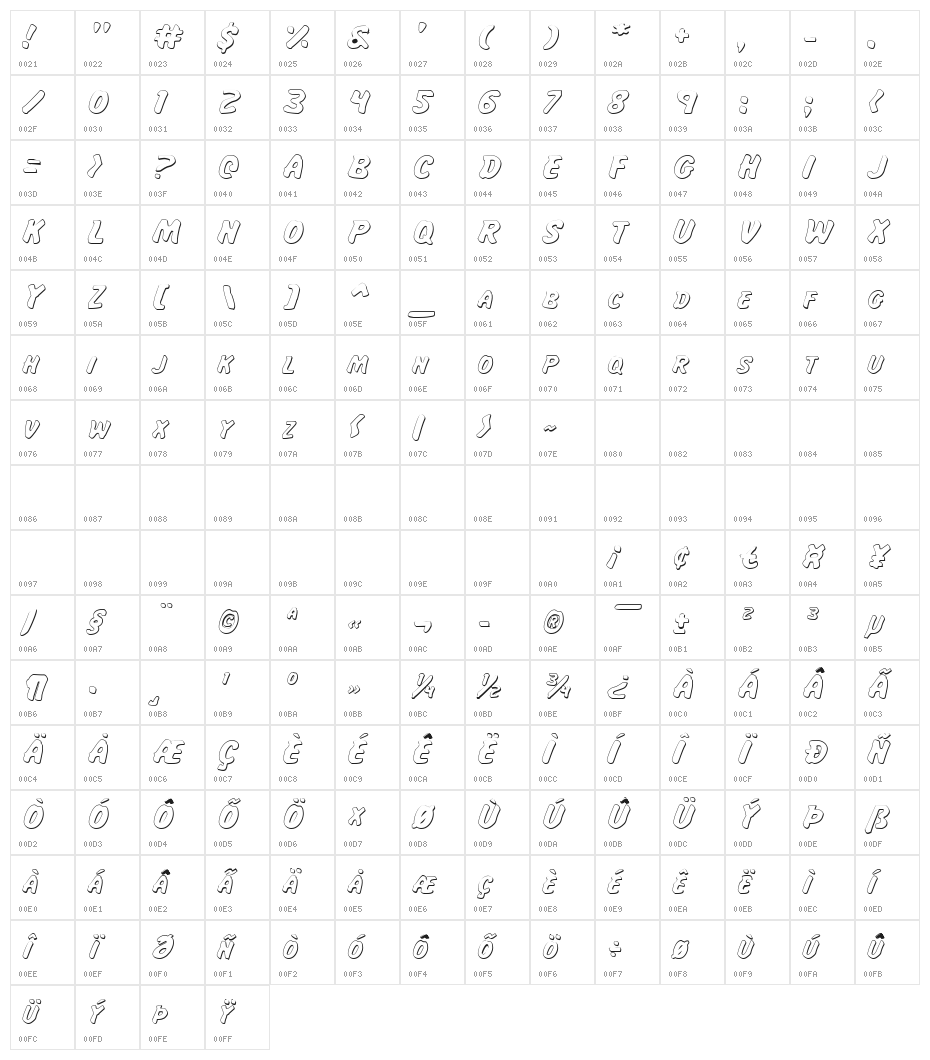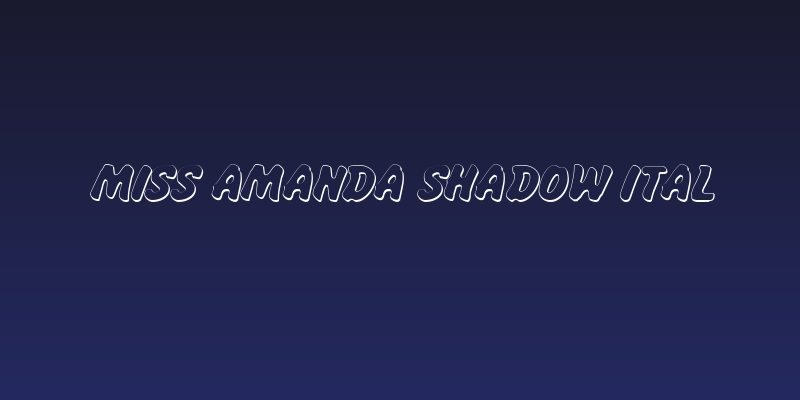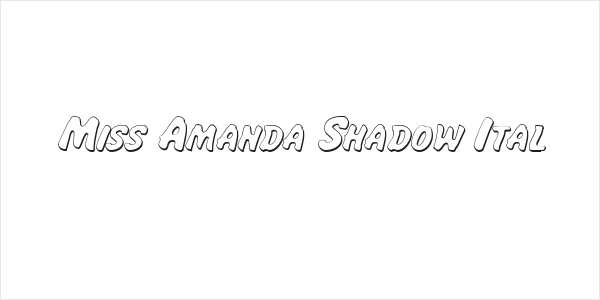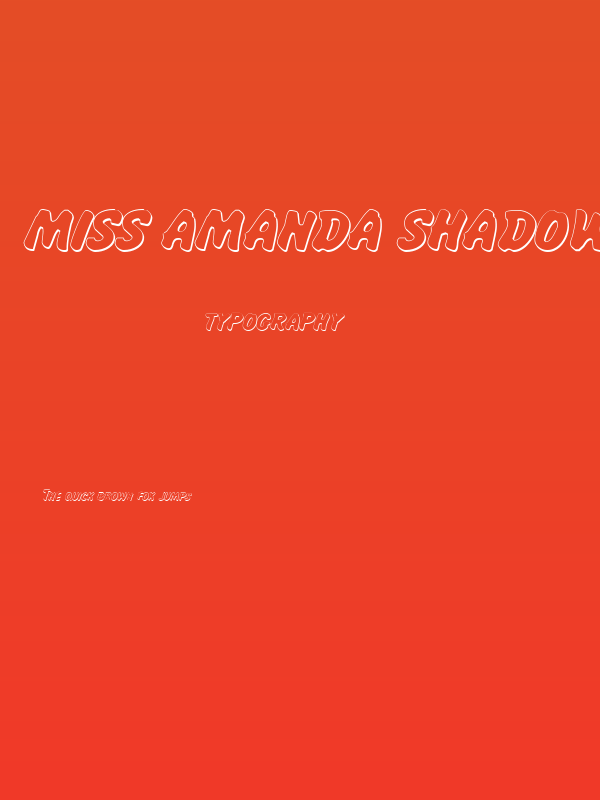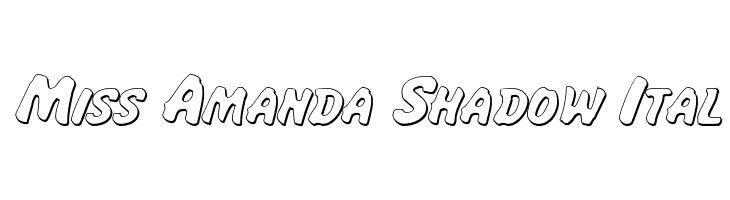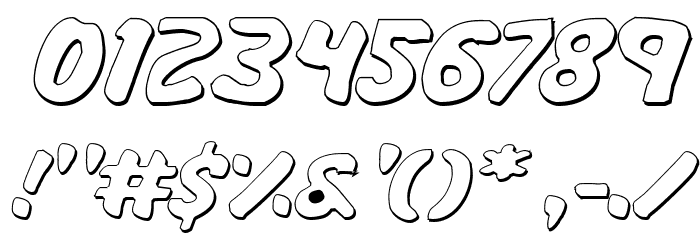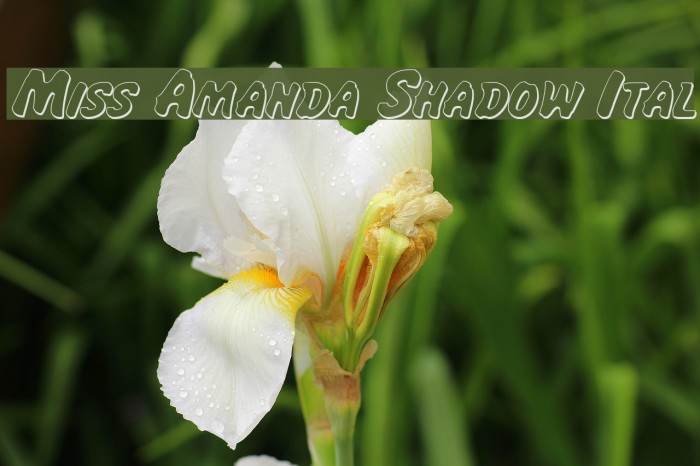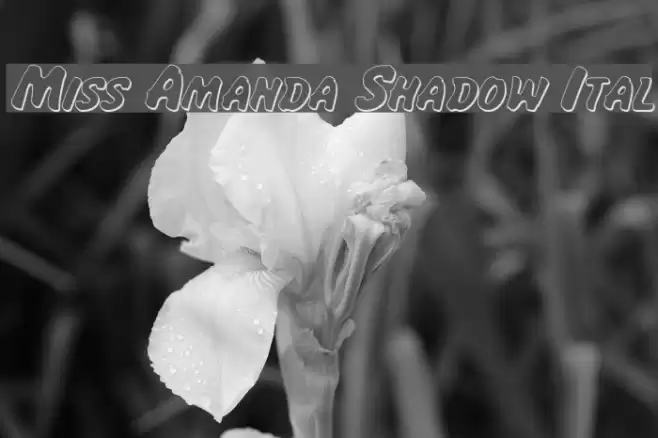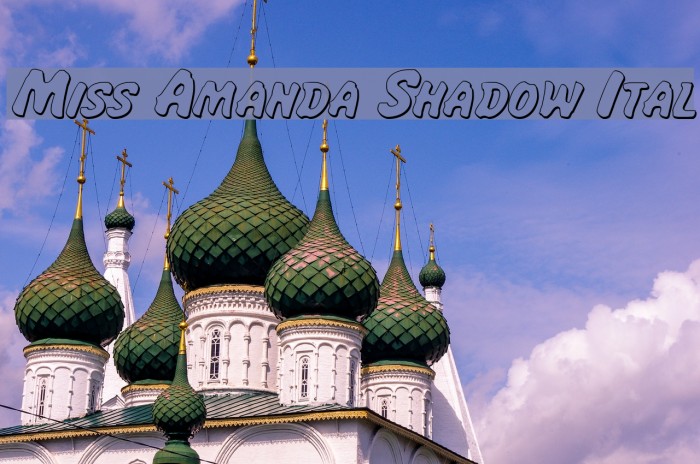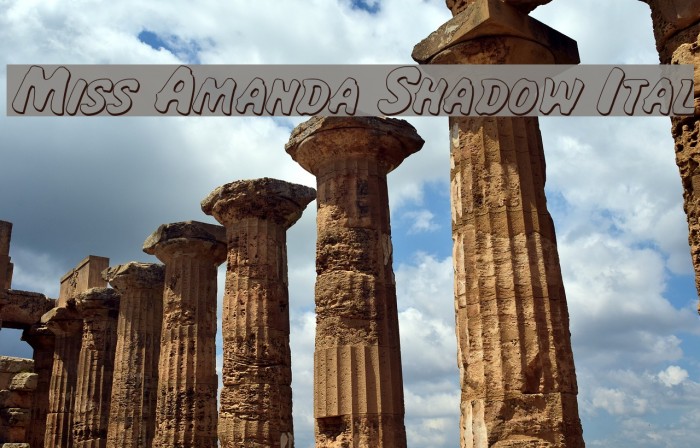
Miss Amanda Shadow Ital Font
Miss Amanda Shadow Ital Description
This playful and bold font features a shadow effect that adds depth and dimension to each character. The letters are rounded and slightly italicized, giving them a dynamic and lively appearance. The font maintains a consistent thickness throughout, with a medium contrast between the strokes and the shadow. The characters are well-spaced, ensuring readability while maintaining a cohesive look. This style is perfect for projects that require a fun and engaging aesthetic, such as children's books, playful branding, or eye-catching headlines.
| Overall Style | Playful, Dynamic |
| Proposed Projects | Ideal for children's books, playful branding, and eye-catching headlines. |